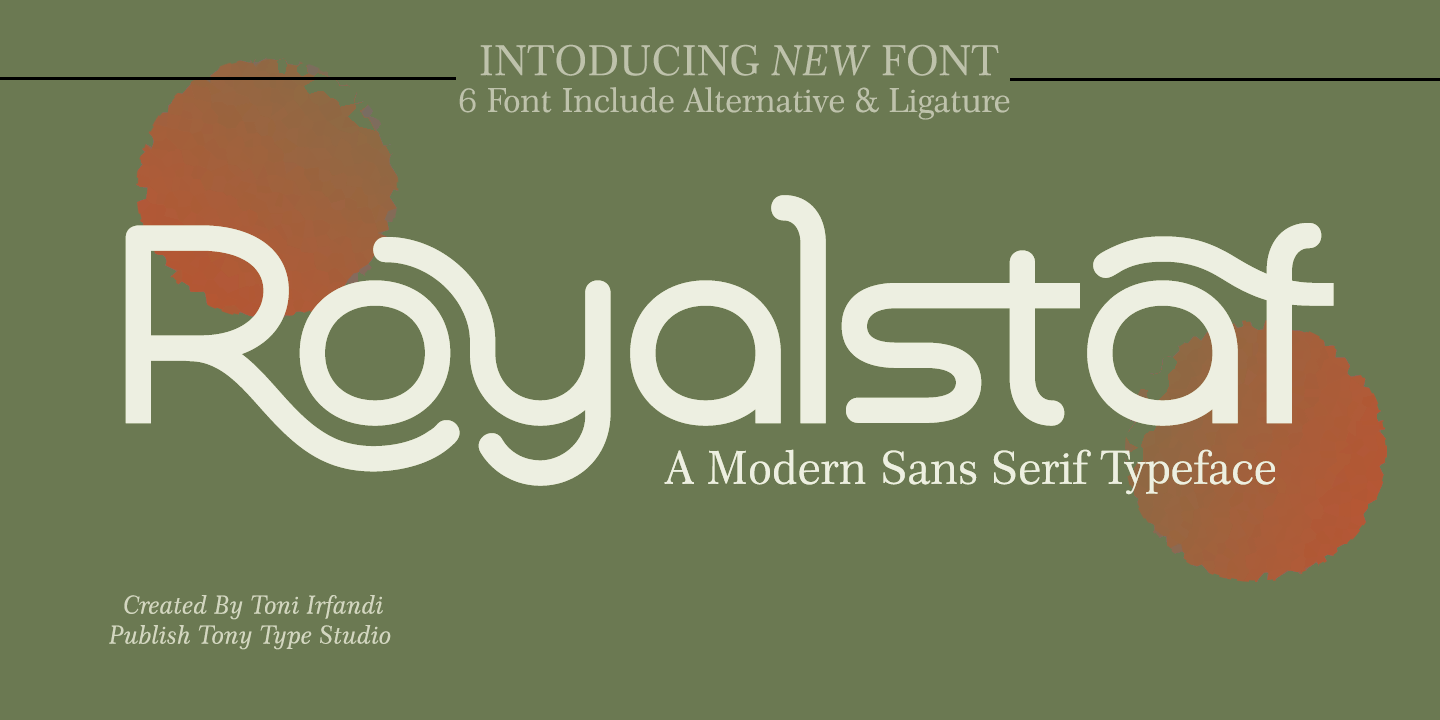
Royalstaf Font is ideal for luxury brand identity, royal palace exhibitions, high-end jewelry catalogs, premium hotel signage, exclusive club materials, aristocratic event invitations, luxury real estate brochures, fine dining restaurant menus, prestigious award ceremonies, royal wedding stationery, crown jewel displays, and regal corporate communications. This majestic typeface brings authentic royal grandeur to projects requiring imperial elegance and sovereign sophistication.
What makes Royalstaf Font so exciting is its extraordinary ability to embody the timeless majesty and imperial authority of royal typography through magnificently crafted letterforms that command respect and admiration. The font features regally proportioned characters with stately presence and noble bearing that instantly convey prestige, power, and aristocratic refinement. Its commanding character communicates sovereignty and exclusive luxury while maintaining dignified readability, making it perfect for brands and institutions seeking to establish imperial authority and communicate the highest levels of prestige with authentic royal heritage.
The Royalstaf Font family includes multiple royal weights and imperial variations that showcase its majestic character while providing comprehensive design flexibility for various luxury applications. Each variant maintains the original's sovereign dignity while offering extensive options for creating prestigious typographic compositions that honor royal traditions and aristocratic values.
Whether you're developing luxury brand identities, creating royal celebration materials, or designing prestigious communications, Royalstaf Font Free Download offers the perfect combination of imperial majesty and contemporary functionality. This exceptional typeface brings authentic royal grandeur to design projects, making it an indispensable choice for designers seeking typography that effectively communicates sovereignty, prestige, and the magnificent splendor of royal heritage with genuine aristocratic authority.